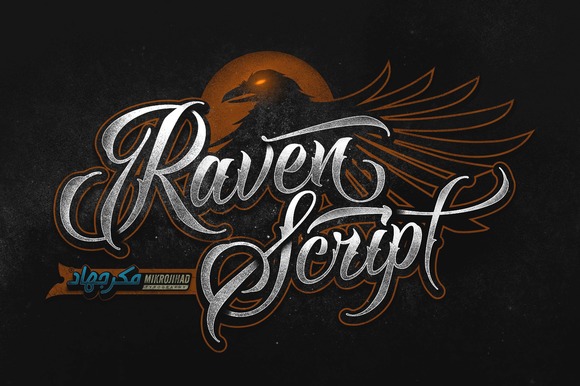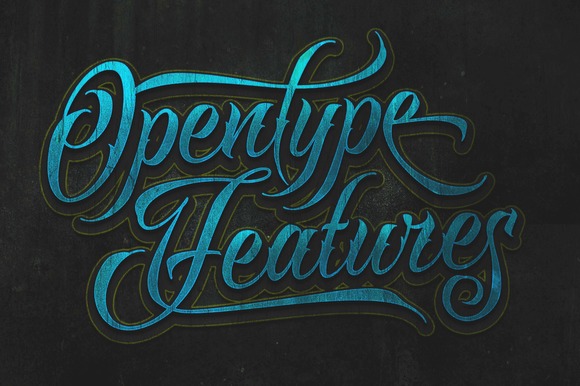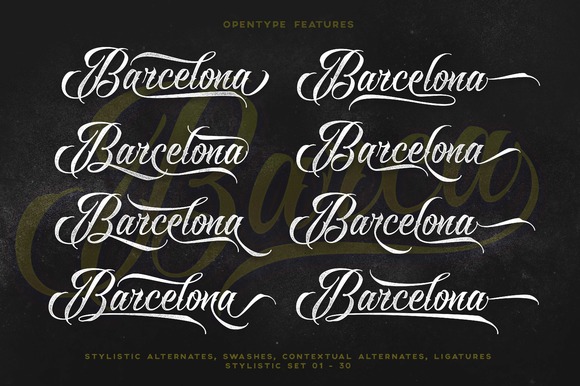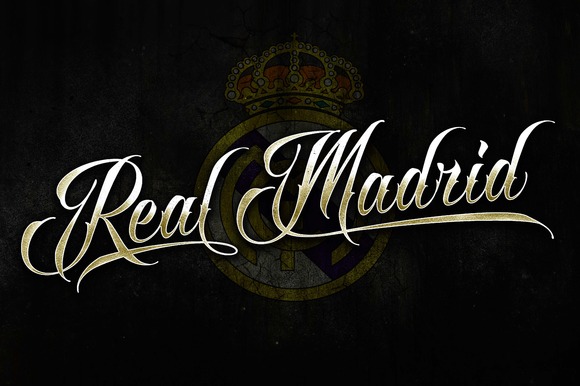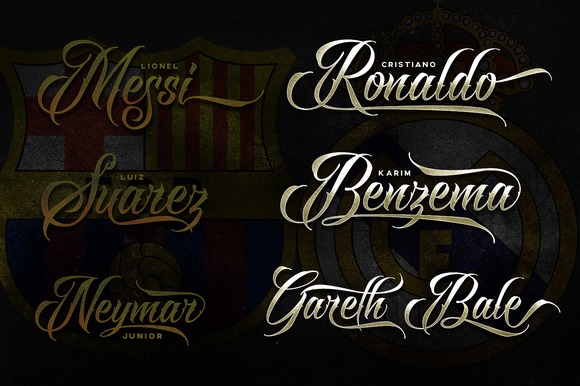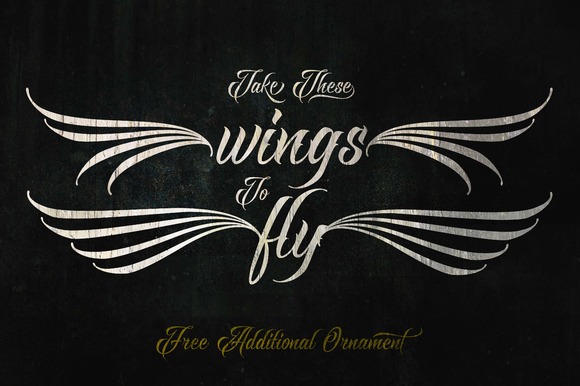
Raven Script Font
About Raven Script Font
This beautiful typeface is inspired by The Raven Wings.
Supports Stylistic Alternates, Contextual Alternates, Swashes/Swooshes Alternates, Standard Ligatures, and Stylistic Set